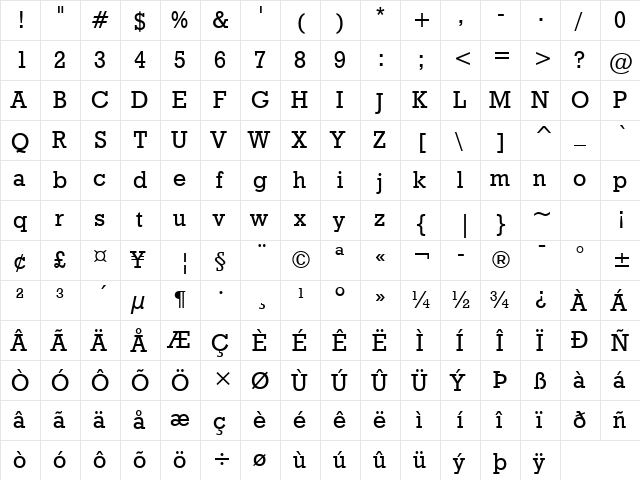
GeoSlb712 Md BT Medium Font Preview
GeoSlb712 Md BT Medium
Design Context for GeoSlb712 Md BT Typeface
GeoSlb712 Md BT takes a measured approach to typography — its balanced proportions and neutral character make it a reliable workhorse for both digital and print work.